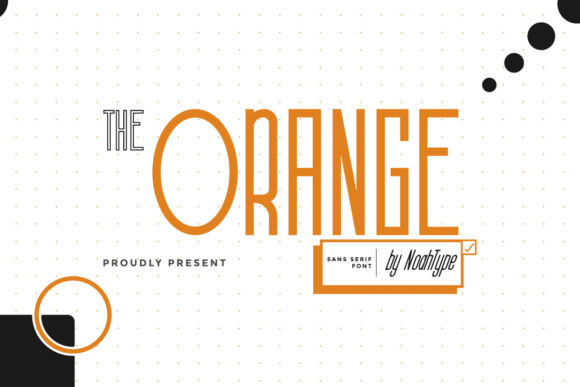
The Orange: A Versatile Sans Serif for Modern Design
First Impressions and Visual Personality
At first glance, The Orange feels like a warm, approachable yet refined sans serif. It carries a subtle energy that suggests both creativity and professionalism. The rounded edges give it a friendly demeanor, while the clean lines and consistent stroke weights speak to a more structured design philosophy.
This typeface doesn’t scream for attention but commands presence through its balance and clarity. It has a visual personality that leans into modern typography without feeling too trendy or outdated. It’s the kind of font that can easily adapt to different brand voices—whether you're designing for a tech startup or a boutique lifestyle brand.
Real-World Performance in Design Projects
The Orange performs exceptionally well across various real-life applications. In logo design, it offers a strong foundation for creating memorable brand marks that feel both contemporary and trustworthy. Its versatility allows it to work with a wide range of industries, from food and beverage packaging to digital product interfaces.
For packaging design, the font's readability at smaller sizes makes it ideal for product labels and instructions. When used in social media graphics or digital ads, it maintains legibility even on mobile screens, ensuring your message is always clear.
In web design, The Orange works well as a primary or secondary font, especially when paired with a complementary serif or script font for contrast. It’s also a great fit for blog graphics and editorial design, where hierarchy and readability are key.
For those working with Cricut projects or printable design, this font’s clean structure ensures crisp cuts and sharp outputs. It’s equally useful in Canva templates and other design assets, offering a premium look without sacrificing usability.
Where to Use The Orange with Care
While The Orange is highly versatile, there are situations where it should be used with care. For example, when applied to large headlines, it might benefit from additional spacing or a bolder weight to maintain visual impact. Similarly, in supporting text, it works best when paired with another font to avoid monotony.
When designing brand identity systems, it’s important to test how The Orange interacts with other elements like logos, colors, and imagery. It may not be the best choice for long-form content or complex layouts, where a more traditional serif font could enhance readability.
In premium packaging or merchandise, The Orange adds a touch of sophistication, but it’s essential to ensure it aligns with the brand’s overall aesthetic and tone.
Readability, Hierarchy, and Brand Consistency
One of the standout features of The Orange is its readability. Even at smaller sizes, the letterforms remain legible, which is crucial for website headers, flyers, and invitations. This makes it an excellent choice for projects where clarity is non-negotiable.
Its consistent stroke weights and open counters help maintain a clean, professional appearance. This contributes to a sense of trust and recognition, which is vital for brand consistency and audience engagement.
When establishing visual hierarchy, The Orange can be used effectively in titles and subheadings, especially when combined with contrasting fonts. It helps guide the viewer’s eye through the design and reinforces the brand’s message clearly.
Practical Designer Notes
Before committing to The Orange for a project, consider these practical steps:
- Test it in black and white: This will help you see how the font holds up under different lighting conditions and color schemes.
- Check small-size readability: Ensure it remains legible in contexts like body text or product labels.
- Try it on real mockups: See how it looks in print and digital formats, including different substrates and screen resolutions.
- Compare uppercase and lowercase: Some fonts behave differently in all caps, so it’s worth testing both variations.
- Review spacing: Adjust letter and word spacing as needed to enhance readability and aesthetics.
- Test it beside other fonts: Experiment with pairing The Orange with serif, script, or display fonts to create dynamic font pairings.
The Orange is a solid addition to any designer’s toolkit. Whether you’re crafting a creative font library or developing digital products, it offers a reliable and stylish option that can elevate your design work. Just remember to use it thoughtfully and in alignment with the project’s goals and audience needs.